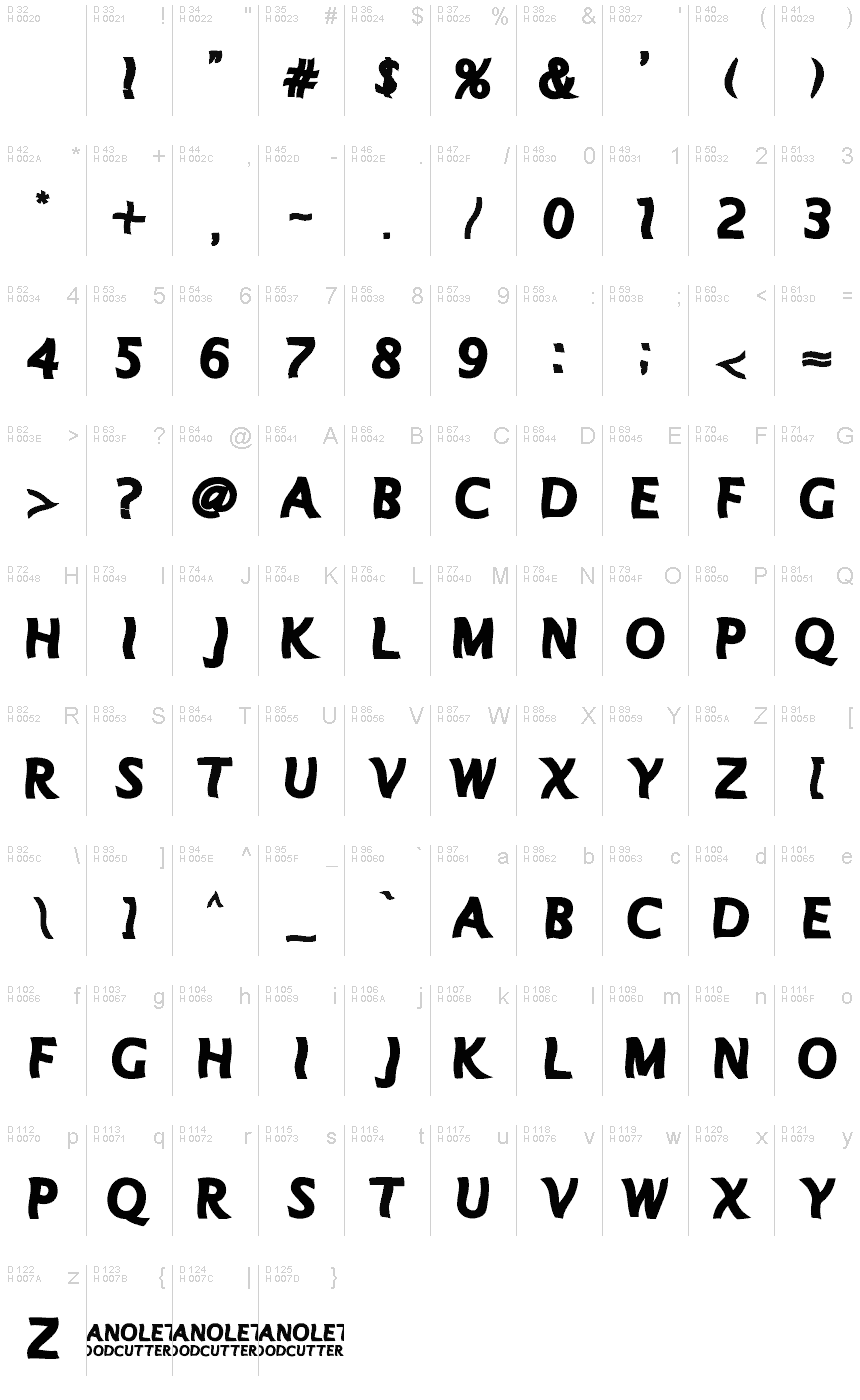
MANOLETE
Manolete is a captivating display font that exudes a distorted, rough-hewn aesthetic. Designed by Woodcutter, this typeface embodies a rugged, handcrafted appeal, with each letter appearing chiseled and weathered. The uneven strokes and jagged edges lend an intriguing sense of imperfection, creating a striking visual impact. This font would excel in design projects seeking a bold, attention-grabbing presence, such as album covers, poster designs, or even branding for artisanal products.
Manolete's distinct character and versatility make it a compelling choice for designers seeking to infuse their work with a unique, unrefined elegance.